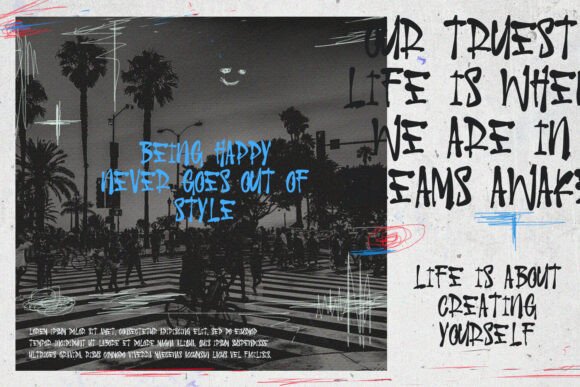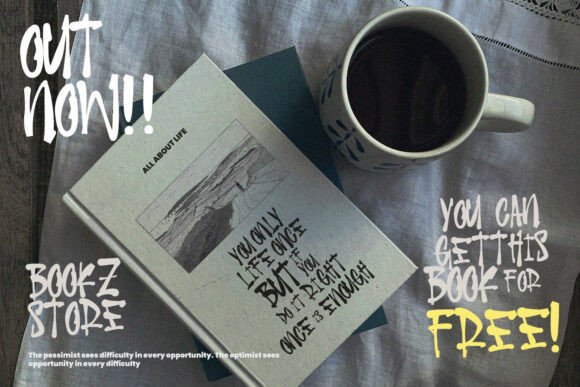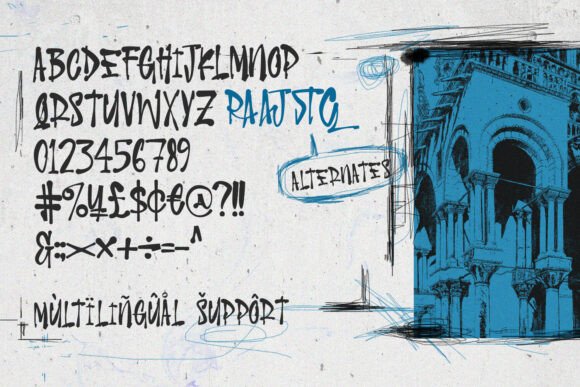
Cajun Wegen Font
Cajun Wegen is a gritty, all-caps handmade font that brings attitude and raw energy to your work. With its expressive strokes and rebellious street-art vibe, this typeface is perfect for edgy branding, album covers, urban posters, skate apparel, and anything that needs a punch of personality.